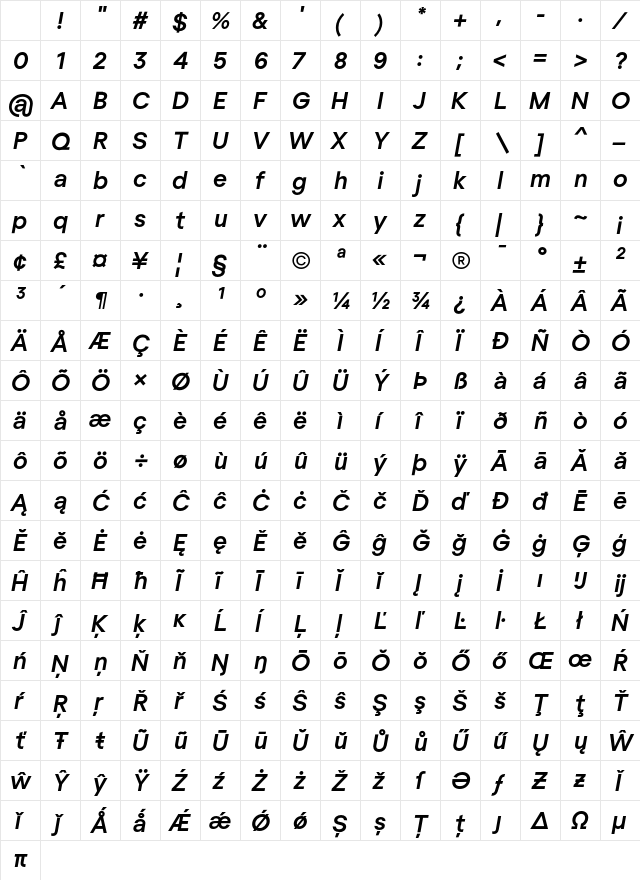
Complete Regola Pro Bold Oblique glyph index. Displaying only characters natively supported by Regola Pro Bold Oblique font.
Regola Pro is a composed and adaptable typeface that performs quietly and consistently across a wide range of design contexts. The slanted form adds forward momentum and visual energy. Its bold stroke weight gives it real presence on the page.
Pro Tip: Use Regola Pro for emphasis, pull quotes, and subheadings where its slanted energy can add rhythm to the layout.